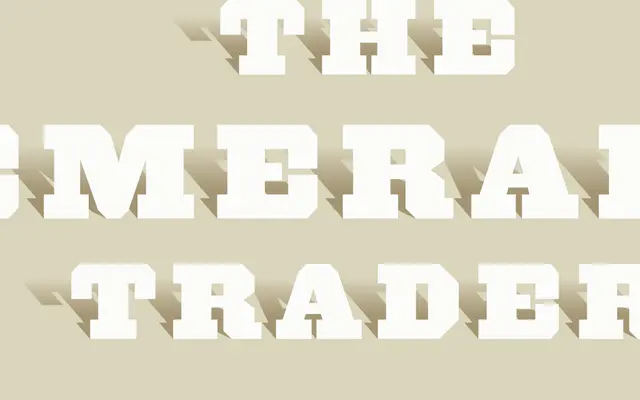
Acropolis
Hoefler & Co · Jonathan Hoefler · 1995
Acropolis specimen from Hoefler & Co
A heavy display face by Jonathan Hoefler that draws on the engraved Greek lettering of nineteenth-century broadsides, part of the Proteus Project alongside Saracen, Leviathan and Ziggurat.
A display family by Jonathan Hoefler released in 1995 as part of the four-family Proteus Project. Acropolis takes its cues from the engraved Greek style that appeared on nineteenth-century broadsides, architectural inscriptions and theatrical bills, with crisp inline detail across three heavy weights. Built to be set large on posters, packaging and editorial mastheads, and designed to interchange freely with the Saracen, Leviathan and Ziggurat sibling families on shared widths and weights.
H&Co classify Acropolis as a display face rooted in the engraved Greek lettering of nineteenth-century broadsides and architectural inscriptions. One of the four families in the Proteus Project, alongside Saracen, Leviathan and Ziggurat, sharing widths and weights with its siblings.